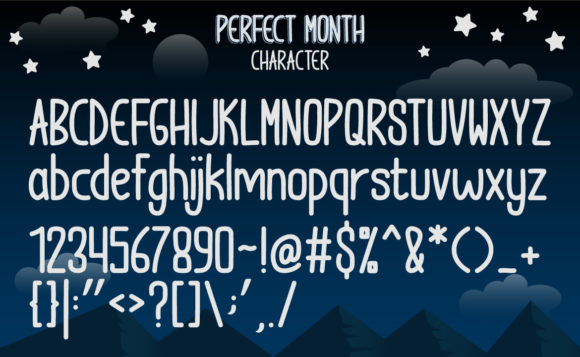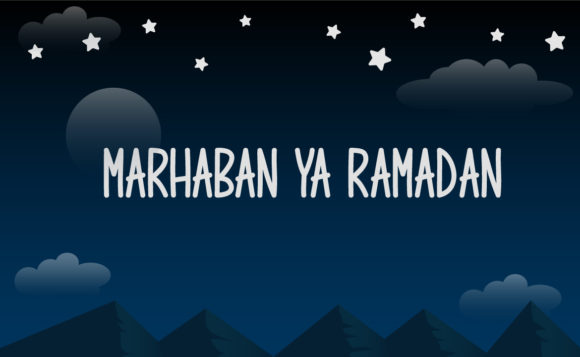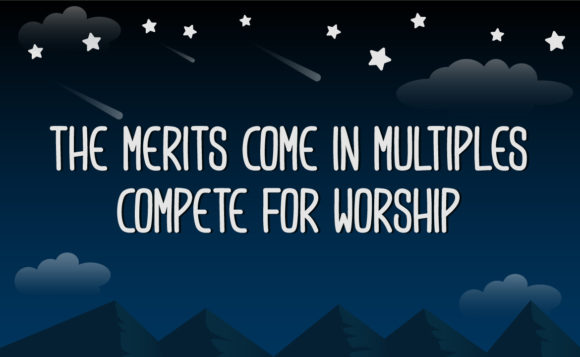
Introduction to Perfect Month Font
As a designer, have you ever found yourself stuck in a creative rut, desperately searching for that perfect font to bring your project to life? You know, that one element that elevates your design from good to great. For me, that moment came when I stumbled upon the Perfect Month Font – a minimal and neat handwritten font that instantly breathed new life into my designs.
What sets Perfect Month apart from other design resources is its versatility and high quality. Whether you’re working on a personal blog, a social media campaign, or a creative project with a transparent background, this font is sure to impress. And the best part? It’s available for a free download, making it an invaluable addition to any designer’s toolkit.
As we dive into the world of Perfect Month Font, I’ll share why it’s become a valuable asset for designers like you and how it can elevate your creative projects to new heights.
Key Features of Perfect Month Font
- High-quality, professional font designed for creative projects, suitable for use in graphic design, digital art, and other design-related fields.
- Features a transparent background, allowing for seamless integration with images, videos, and other design elements, making it ideal for creative projects.
- Available in a range of sizes, from 12pt to 72pt, and with high resolution (up to 300 DPI), making it suitable for use in various design applications.
- Designed to be highly legible, making it perfect for use in body text, headings, and other typography-heavy design elements.
- Perfect Month Font is a unique and creative design resource that adds a touch of elegance and sophistication to any design project.
Honest Review: Perfect Month Font
I recently stumbled upon the Perfect Month Font and was excited to try it out for a creative project. As a designer, I’m always on the lookout for high-quality design resources that can elevate my work. The Perfect Month Font didn’t disappoint.
- ✨ High-quality design that’s perfect for headers and titles
- ✨ Elegant and modern aesthetic that works well for creative projects
- ⚠️ Limited character set, which may not be suitable for longer texts
- ⚠️ No transparent background option, which may not work well with all design elements
Overall, I’m impressed with the Perfect Month Font’s design and versatility. While it may have some limitations, it’s still a valuable resource for designers working on creative projects. With a little creativity, you can work around its limitations and create stunning designs.
The Perfect Month Font is a high-quality design resource that offers a unique and creative way to present information. This font is perfect for any project that requires a modern and sleek look, making it an ideal choice for designers and non-designers alike.
To use the Perfect Month Font in PowerPoint or Word, select the font from the font menu and adjust the size and color as needed. This font is perfect for presentations and documents that require a modern and sleek look.
To get the most out of the Perfect Month Font, use it in conjunction with other design elements that complement its modern and sleek look. Some common use cases include:
- Presentations and reports
- Marketing materials and social media posts
- Brochures and flyers